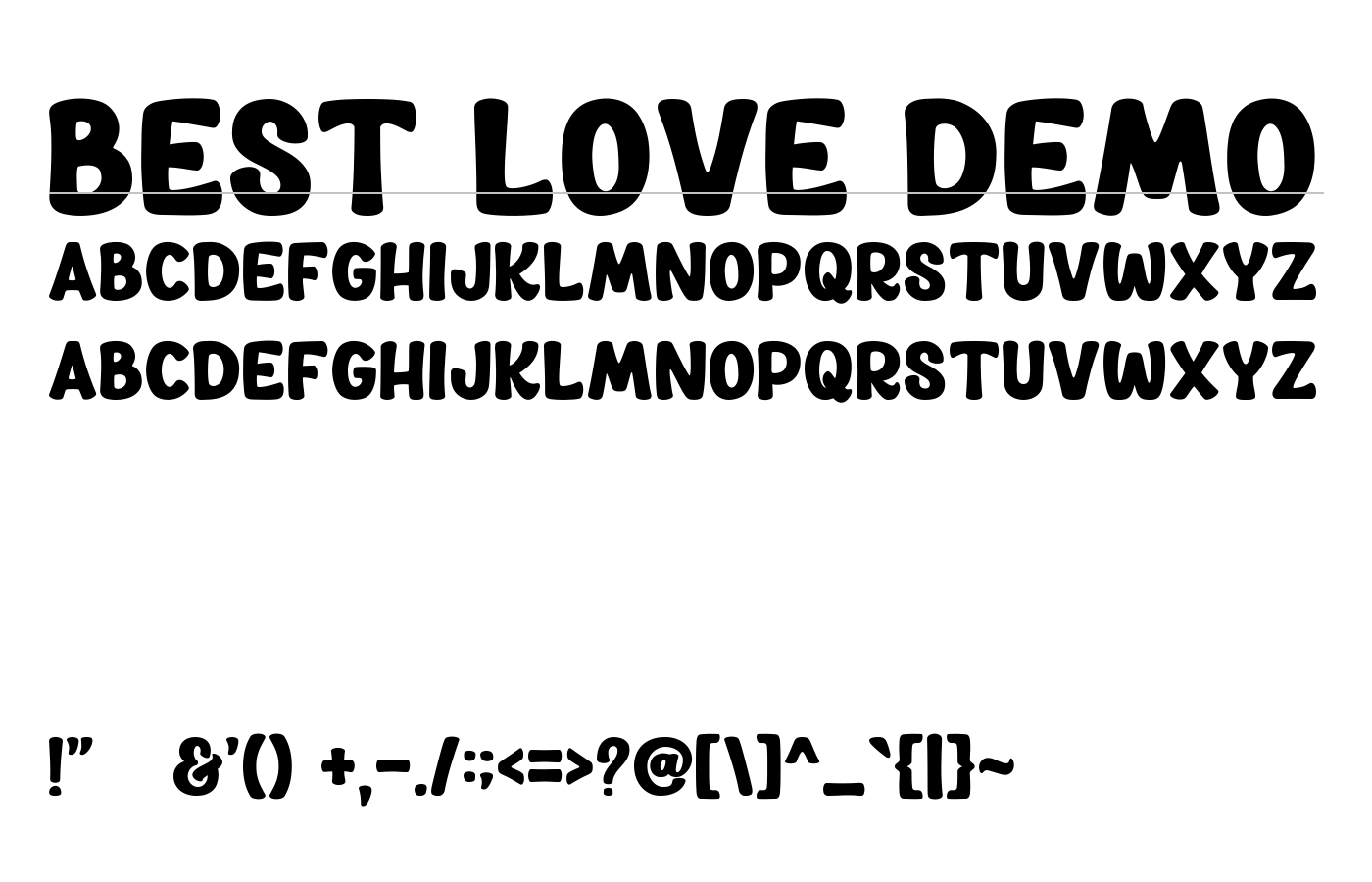
Best Love DEMO is a bold, playful sans serif font with a hand-drawn, rounded style that gives it a warm and friendly personality. Its generous letter spacing and chunky shapes make it highly readable and perfect for casual, fun designs such as children’s books, posters, or branding that aims to feel approachable and lively. This font works especially well in headlines and display uses where a cheerful, informal vibe is desired.
Best Love DEMO Font
About Best Love DEMO Font
| Font family | Best Love DEMO Font |
| Designer | Vilogsign |